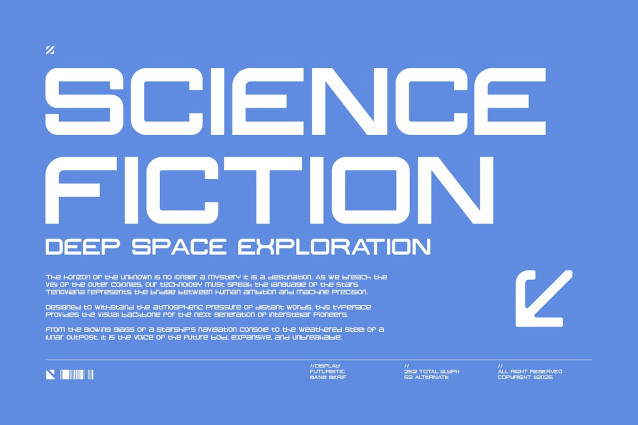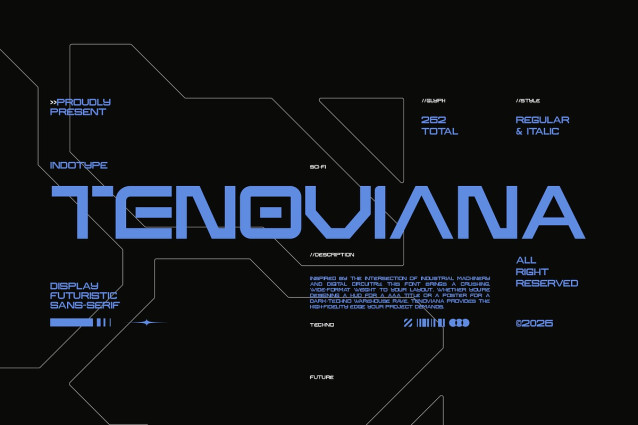
It Tenoviana Font
It Tenoviana Font is a crushing, high-fidelity display font forged in the digital underground. It channels the raw, immersive energy of dark techno, warehouse raves, and dystopian sci-fi, blending sharp geometric construction with a gritty, high-voltage aesthetic. This is not a font of the bright future—it’s the typography of the interconnected, high-contrast now, built for projects that demand an uncompromising, cybernetic edge. With 262 total glyphs available in both a solid Regular and a slanted, dynamic Italic style, Tenoviana offers the tools to craft immersive identities for music, gaming, and tech. It provides the stark, authoritative voice needed for experimental music labels, cyberpunk game interfaces, techwear branding, and any visual project operating at the intersection of sound, data, and shadow.